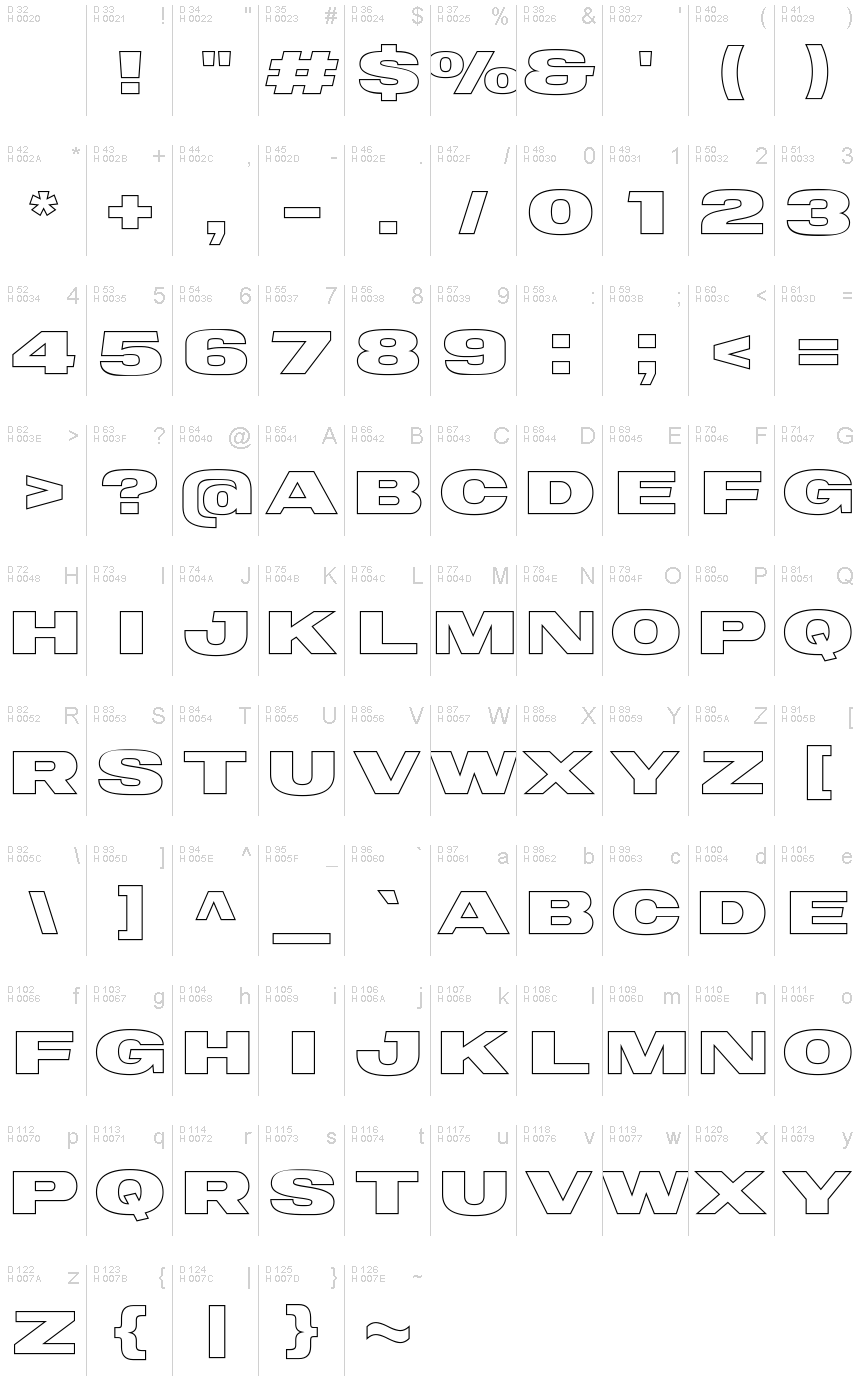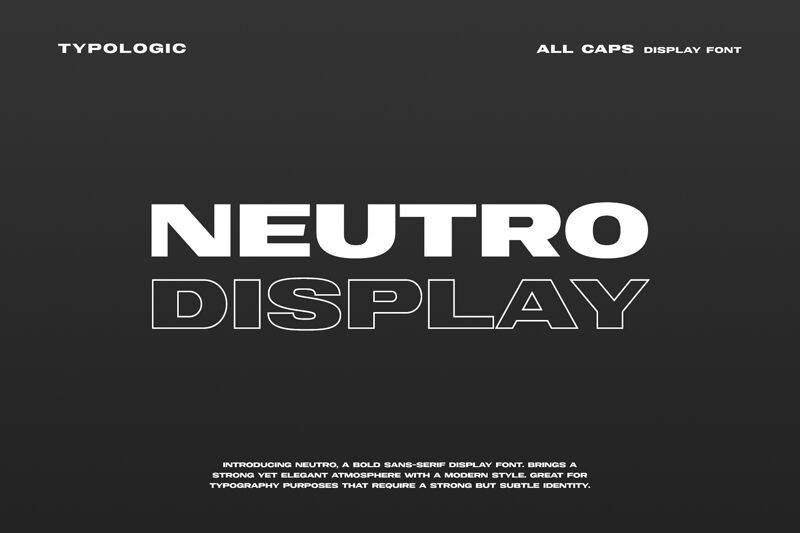
Neutro Outline
Neutro Outline, designed by Typologic, is a contemporary addition to the Neutro font family. This extra-bold, extra-expanded sans serif display font offers a unique blend of strength and elegance, perfect for creating a modern and subtle identity. With its distinct character and style, Neutro Outline stands out for typography projects that demand a commanding presence without overwhelming the content.
Available in three weights—regular, bold, and extrabold—and an outline version, this font is incredibly versatile. Its clean lines and generous spacing make it not only readable but also strikingly attractive. Whether it's branding, advertising or editorial design, Neutro Outline promises to infuse your creative work with an understated yet powerful aesthetic that captivates the viewer’s attention.